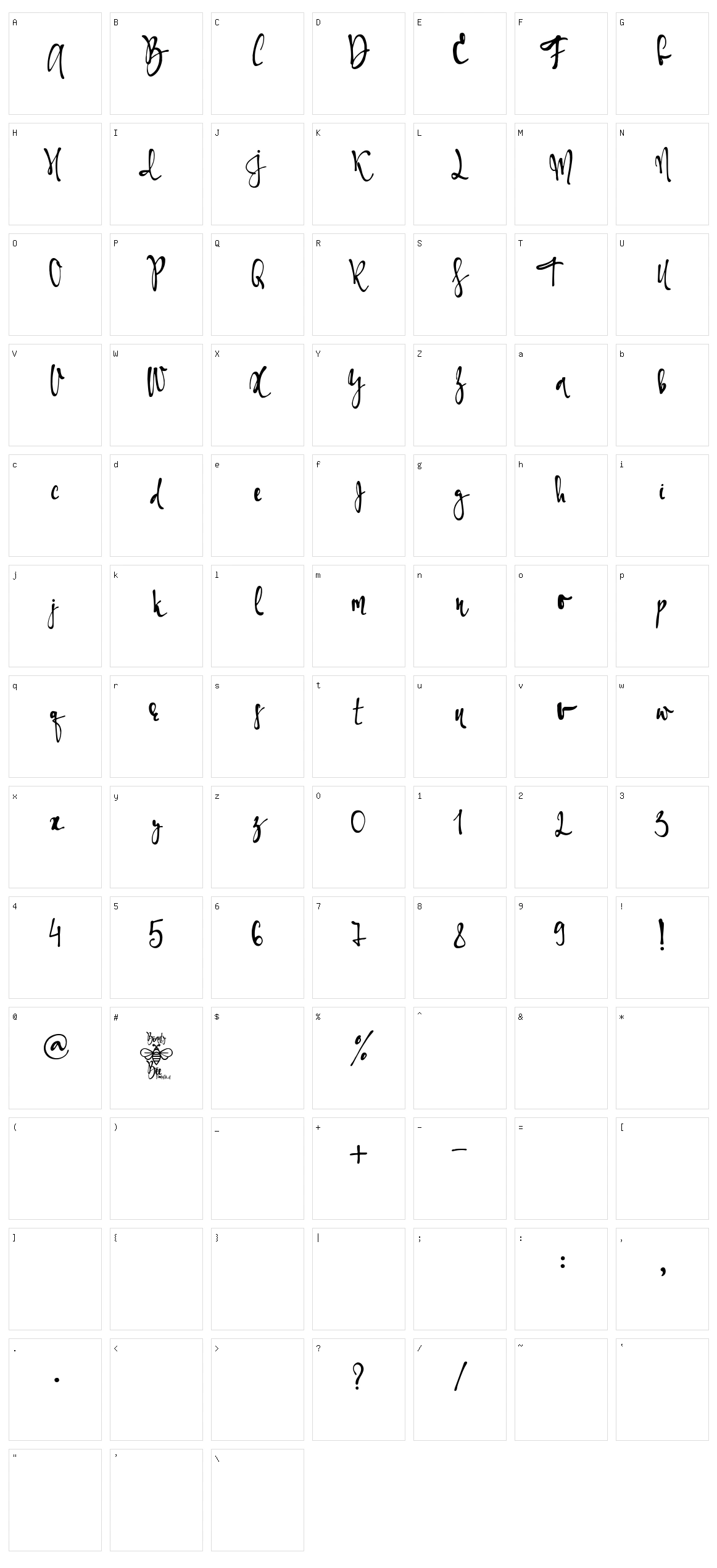
The free font Beauty Bee is carefully designed by Woodcutter, showcasing a thoughtful balance of creativity and usability and falls under the Script font style. When you download the ZIP file, it contains only 34.75 KB of font files, making it lightweight and quick to download. Please review the license details below to understand permitted usage and distribution rights. If license information is not available, we recommend using this font for personal projects only or contacting the author directly for commercial usage permissions.